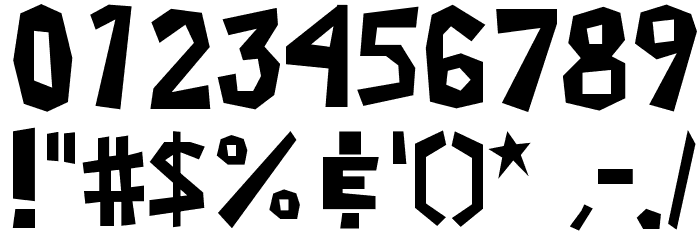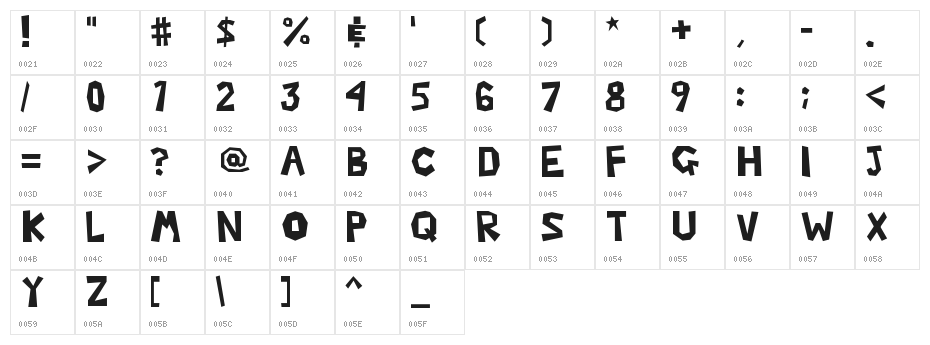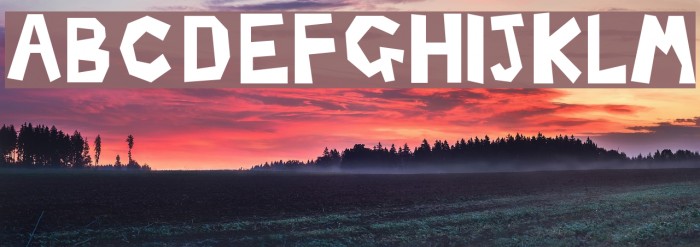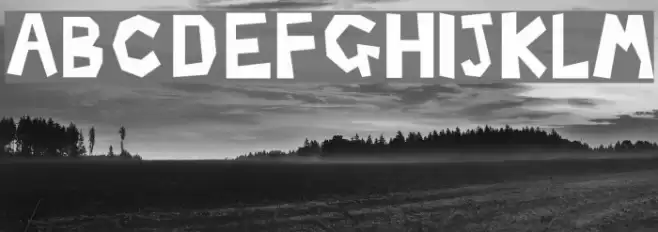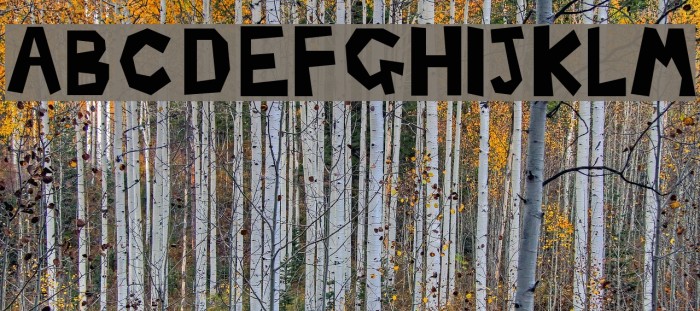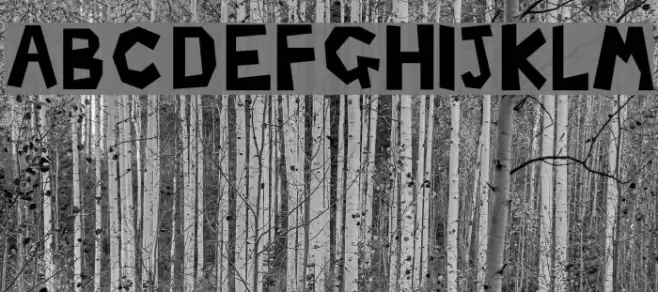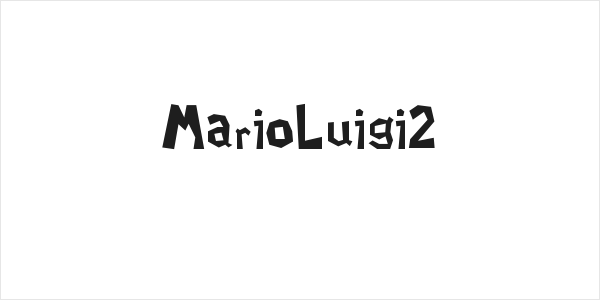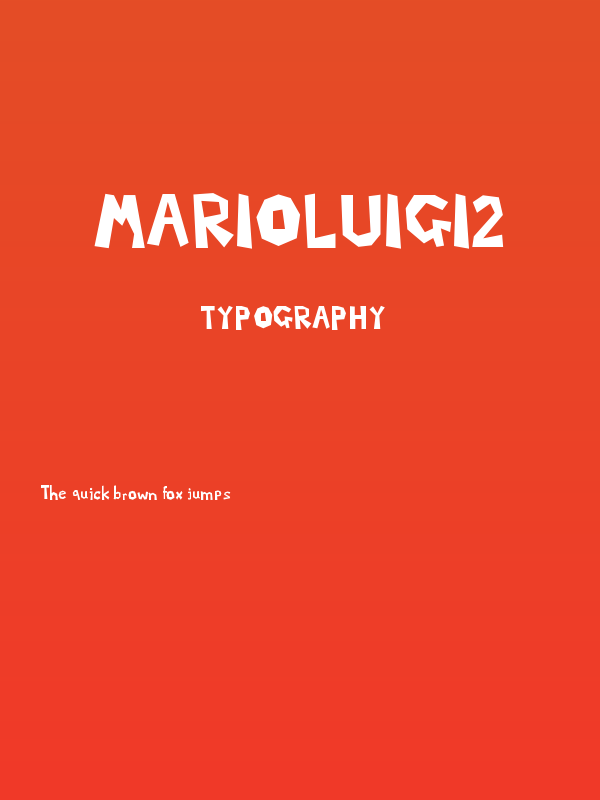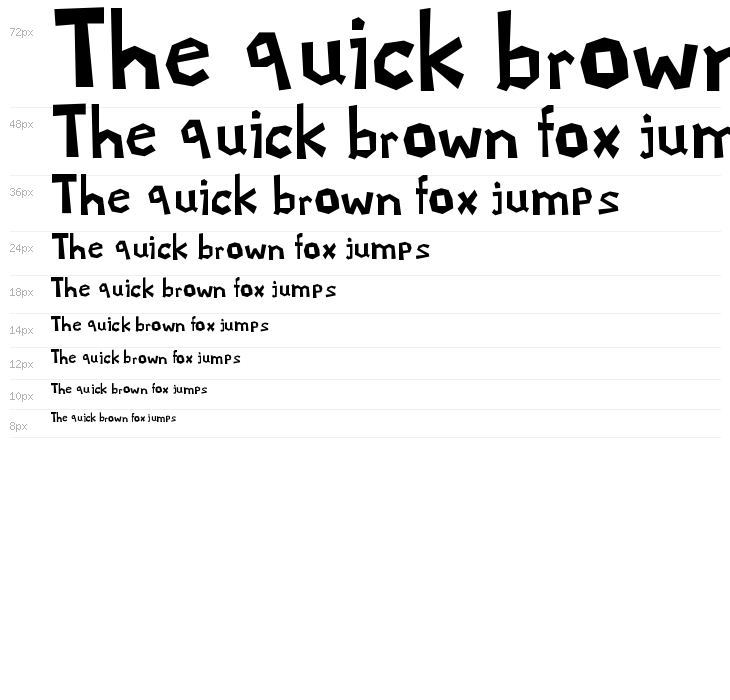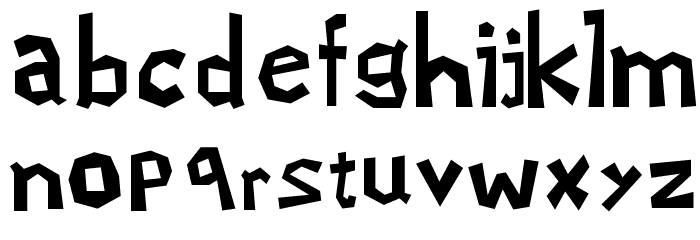
MarioLuigi2 Font
MarioLuigi2 Description
This font features a bold and playful design with a distinctly geometric and angular style. The characters are crafted with sharp edges and irregular shapes, giving them a dynamic and energetic appearance. The uppercase and lowercase letters maintain a consistent style, with the lowercase letters mirroring the playful nature of the uppercase. Numbers and special characters follow the same design principles, ensuring a cohesive look across all elements. The font's unique style makes it stand out, ideal for projects that require a fun and eye-catching typeface.
| Overall Style | Playful and Energetic |
| Proposed Projects | Perfect for video game titles, children's book covers, posters, and branding that requires a fun and energetic vibe. |